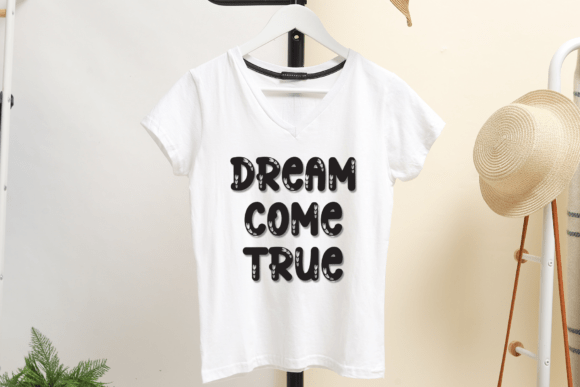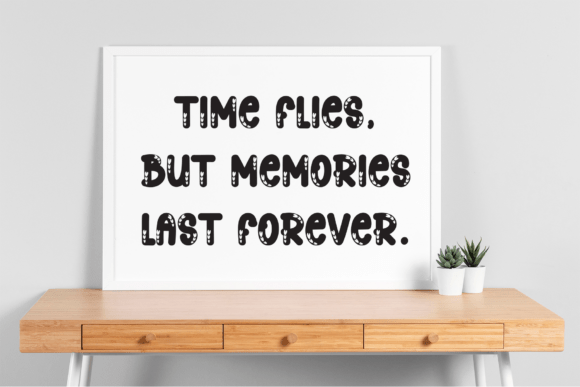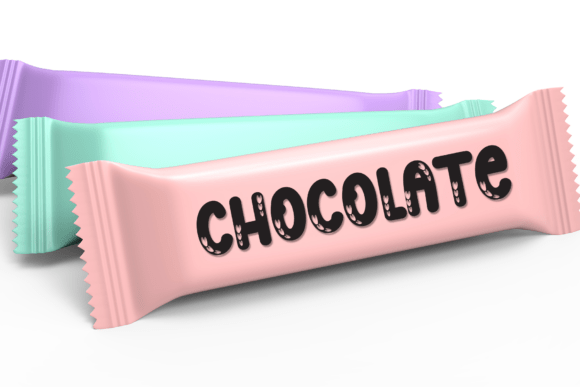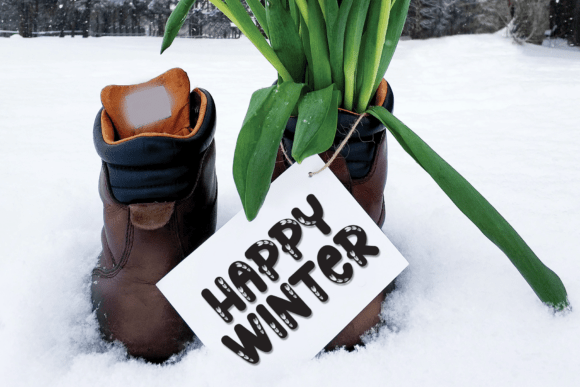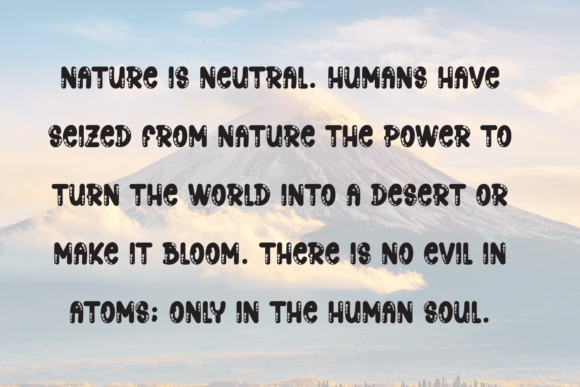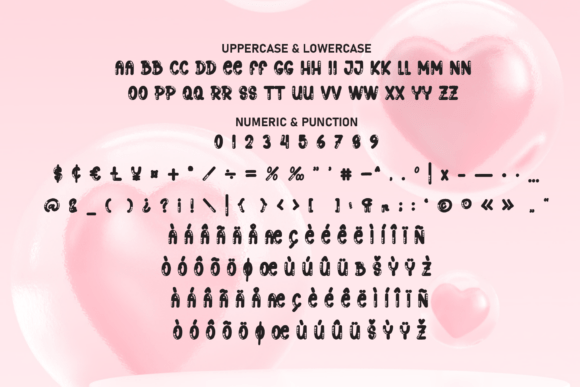
Introduction to Lovely Bubble Font
Lovely Bubble is a casual and neat decorative display font that combines simplicity with a friendly, approachable vibe.
Featuring clean lines, balanced letterforms, and subtle rounded edges, it captures the essence of modern handwritten typography with a polished finish Ideal for branding, headlines, packaging, and digital content, it adds a warm and inviting touch to any design.
Key Features of Lovely Bubble Font